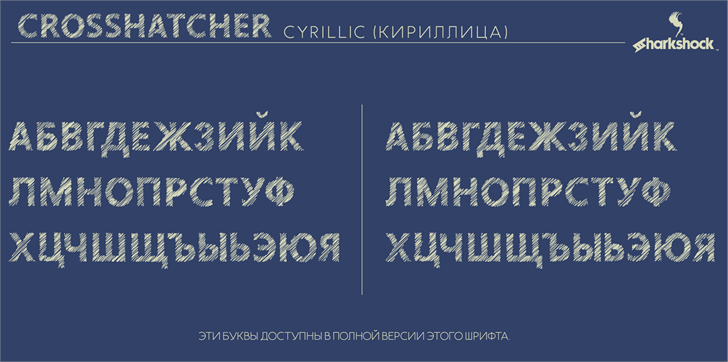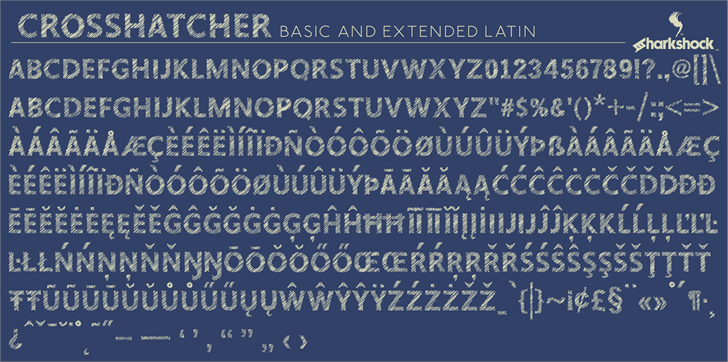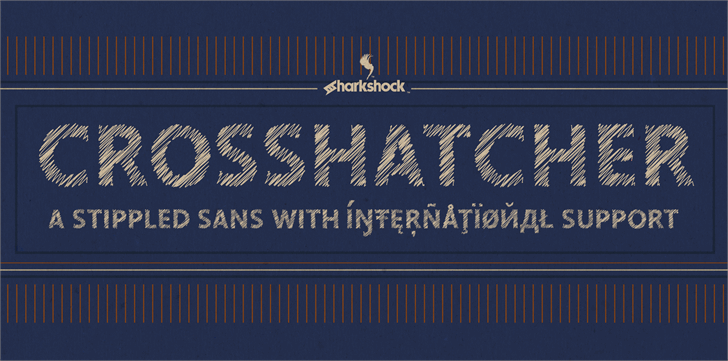
Crosshatcher
Crosshatcher Font
Crosshatcher is an all caps sans with the appearance of scribble across a stencil. Up close it’s a childish mess but at smaller sizes or farther away it comes together. This is a great display font for clothing, advertisements, and publishing. Basic Latin, extended Latin, diacritics, Cyrillic, punctuation, and kerning are all included in the full version. The demo contains basic Latin, limited punctuation, and some kerning.